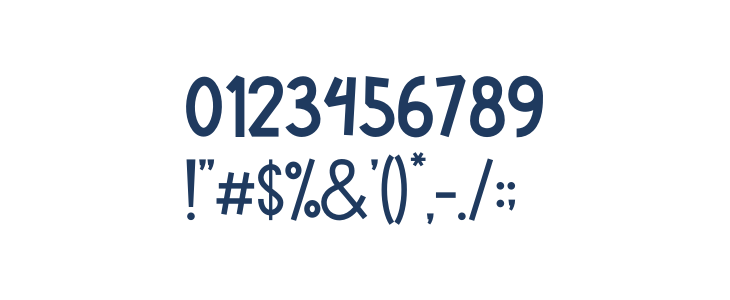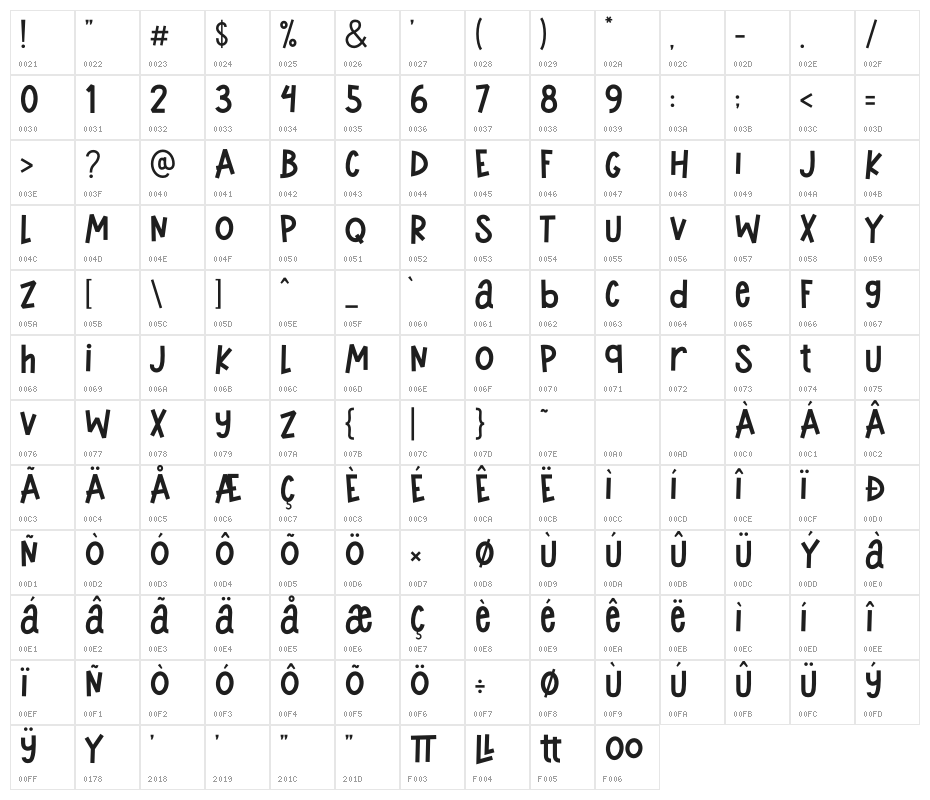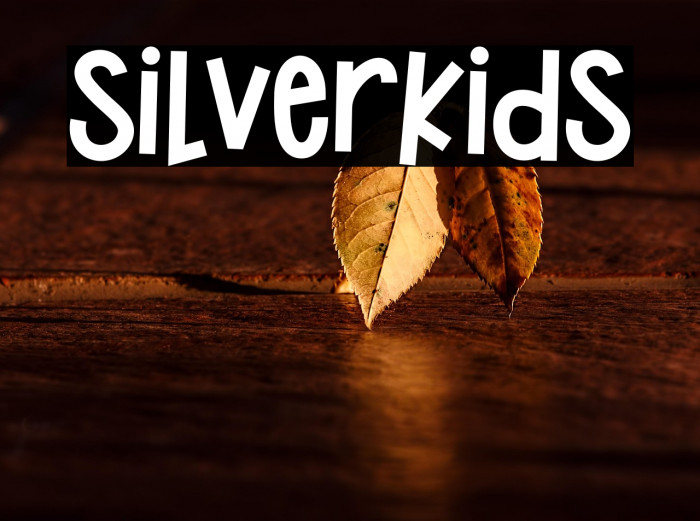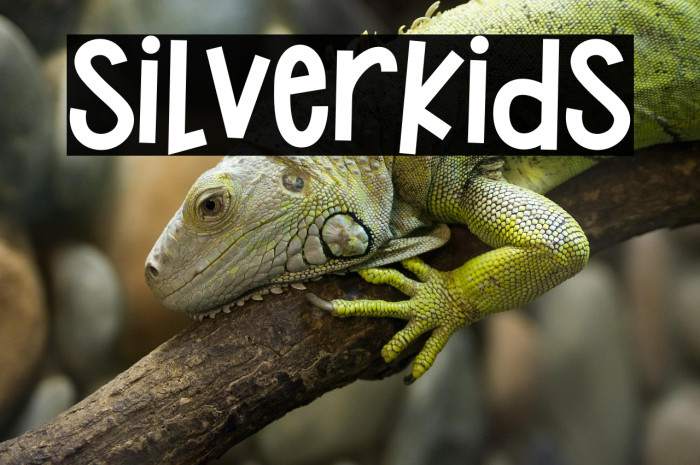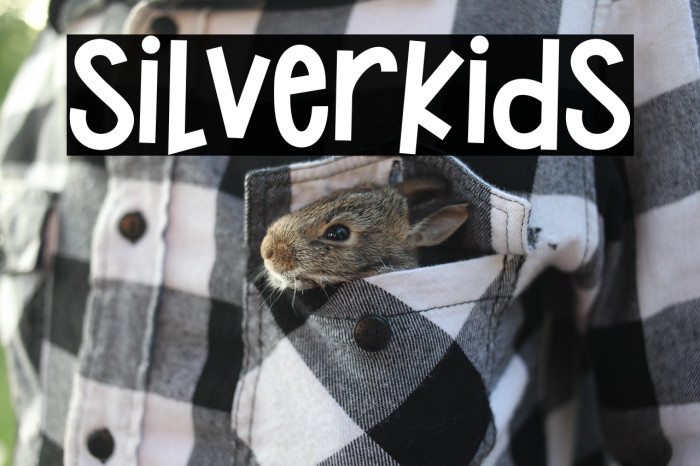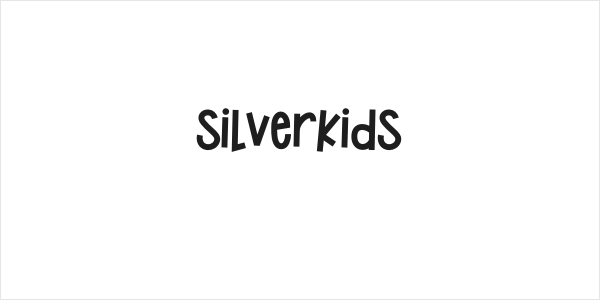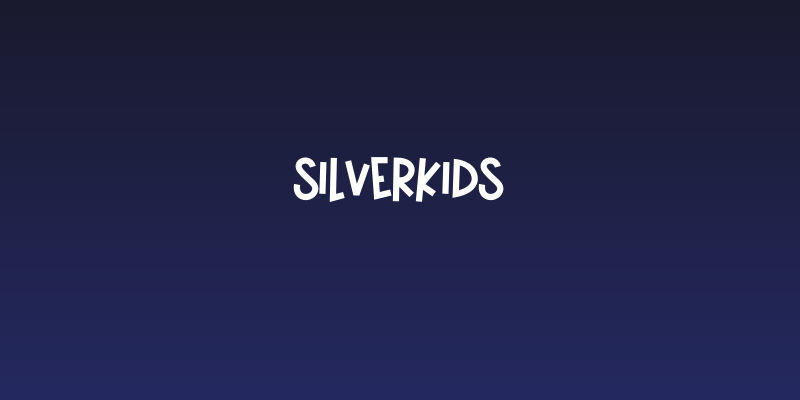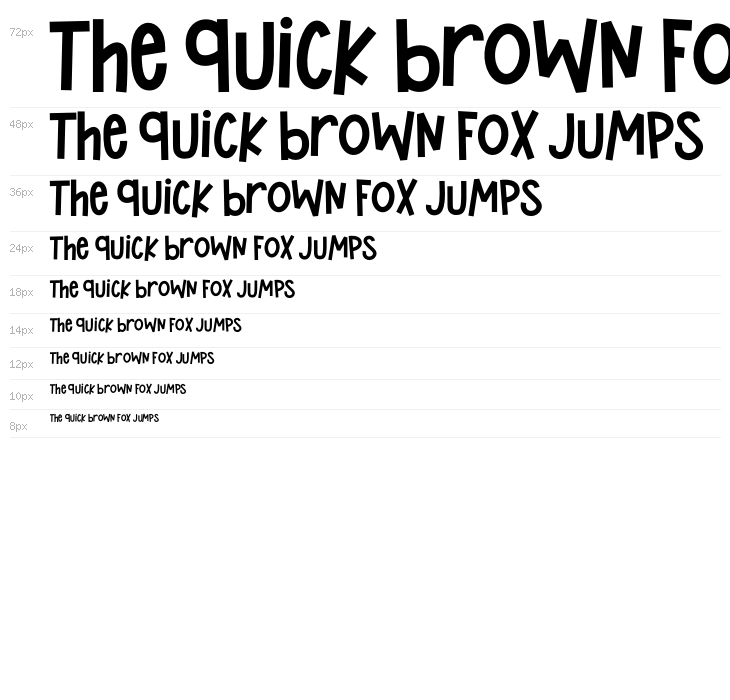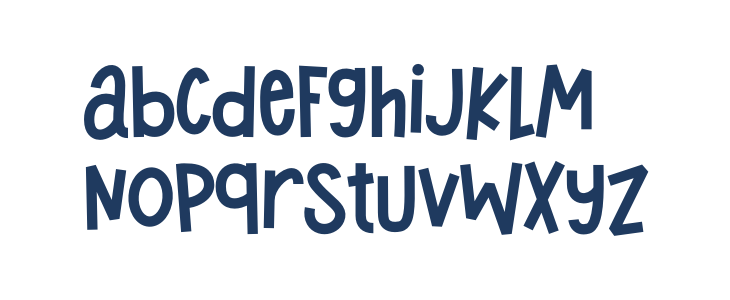
Silverkids Font
Silverkids Description
This playful and energetic font features bold, slightly irregular characters that convey a sense of fun and creativity. The uppercase and lowercase letters are designed with a whimsical touch, making them ideal for projects that require a lively and informal tone. The numbers and special characters maintain the same playful style, ensuring consistency across all text elements. The font's unique character shapes and slight variations in stroke width add to its charm, making it perfect for children's materials, creative branding, or any project that benefits from a touch of whimsy.
Overall StylePlayful
Proposed ProjectsIdeal for children's books, playful branding, posters, and creative projects.